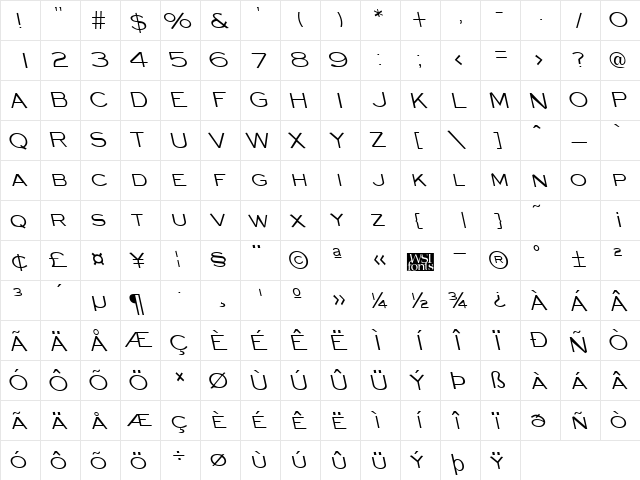
EyechartBackslant Regular Font Preview
EyechartBackslant Regular
EyechartBackslant Regular Font Details
Design Context for EyechartBackslant Typeface
EyechartBackslant takes a measured approach to typography — its balanced proportions and neutral character make it a reliable workhorse for both digital and print work.